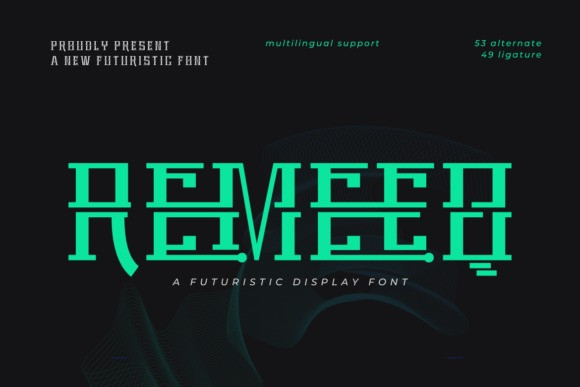
Remeeq Font
Introducing Remeeq Display Font , the futuristic font that will take your designs to the next level! The sleek and modern design of this font is perfect for those looking to create designs that are cutting-edge and ahead of their time. Whether you’re designing for a sci-fi movie poster or a tech startup, Remeeq is the font that will make your designs stand out from the crowd.